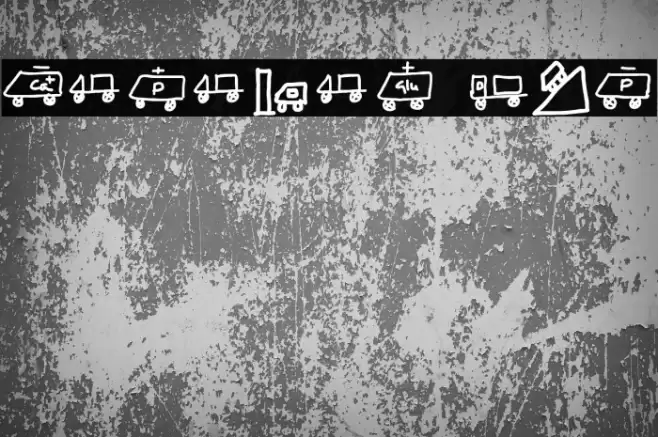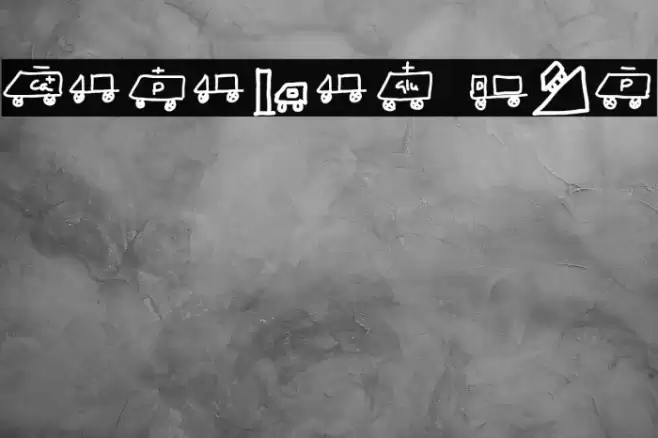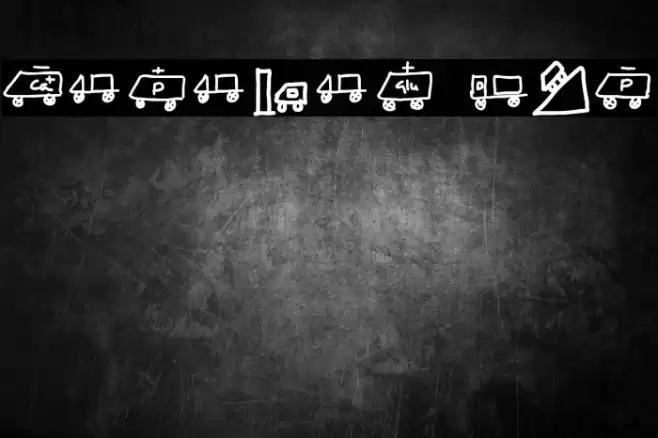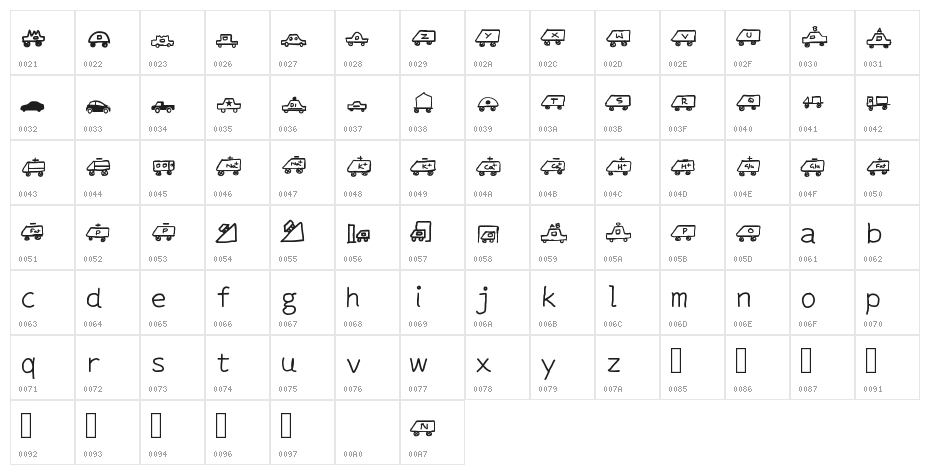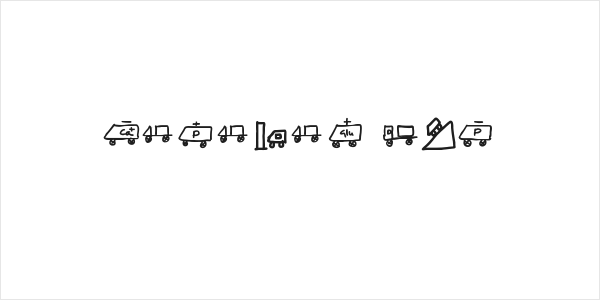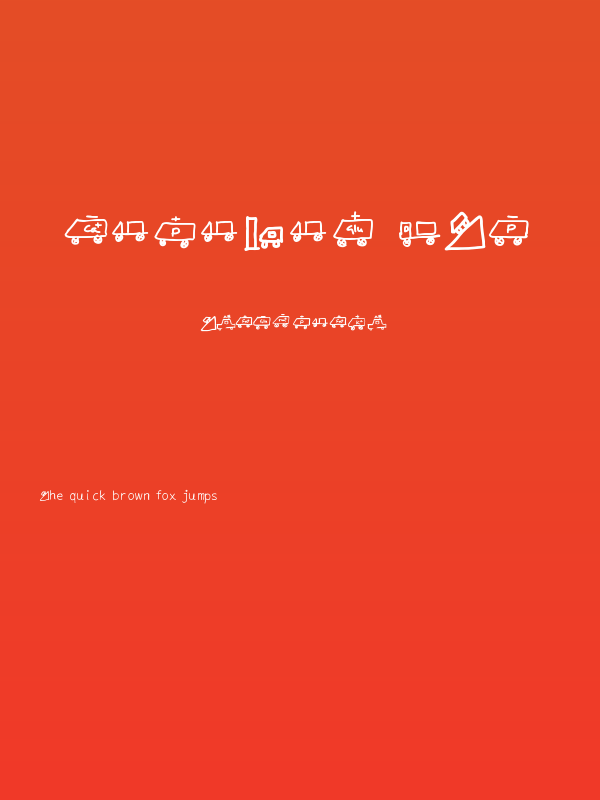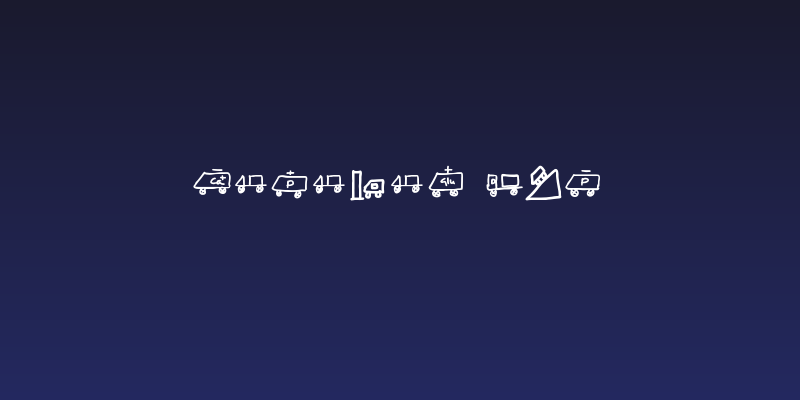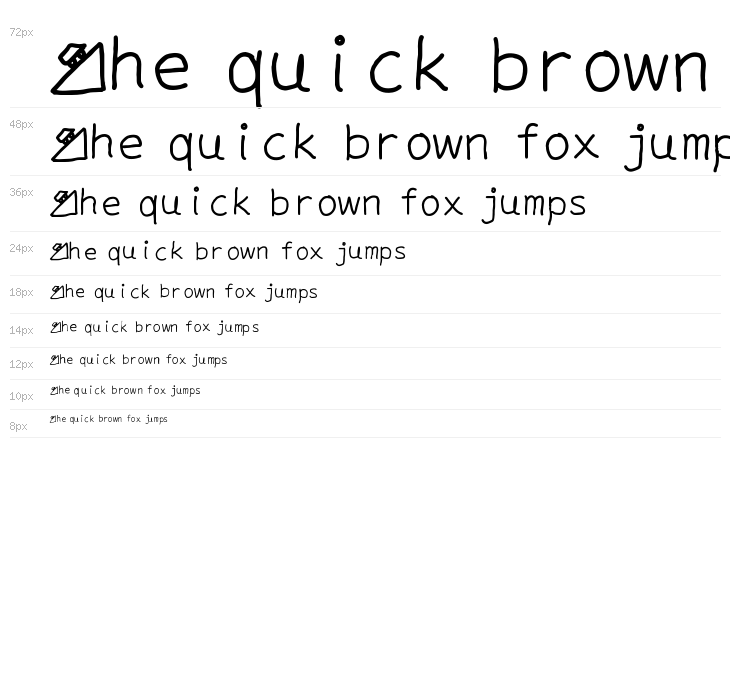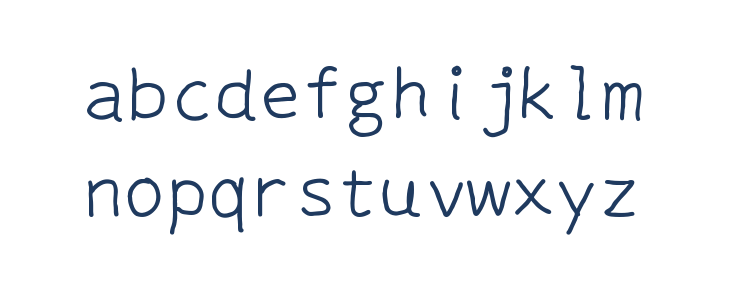
KARAVAN BUS Font
KARAVAN BUS Description
This whimsical and playful font features characters that are creatively designed to resemble various vehicles, such as cars, trucks, and caravans. Each letter is uniquely crafted to incorporate elements of transportation, making it a fun and engaging choice for projects that aim to capture attention with a lighthearted theme. The lowercase letters are more traditional in style, offering a simple and clean look, while the uppercase letters are more decorative, each with its own vehicle-inspired twist. This font is perfect for children's books, educational materials, or any project that benefits from a touch of creativity and imagination.
A playful font with characters designed as vehicles, perfect for creative projects from Uncategorized fonts.
- Proposed Projects: Ideal for children's books, educational materials, playful branding, and creative posters.
- Overall Style: Playful, Creative